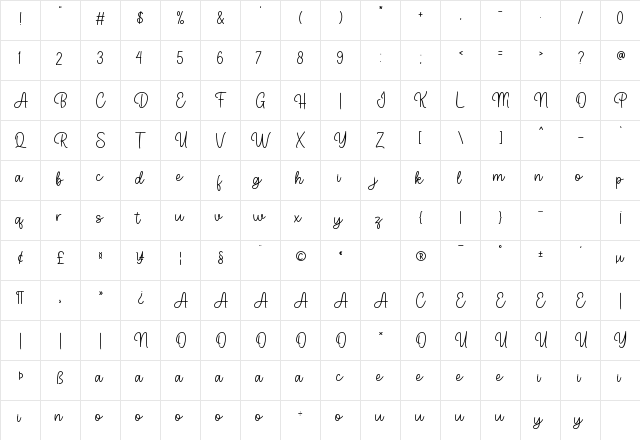
Hello Bunny Regular
| Foundry | Nirmala Creative |
| Designer | Risma Ramawi |
Design Context for Hello Bunny Typeface
Hello Bunny is a composed and adaptable typeface that performs quietly and consistently across a wide range of design contexts.